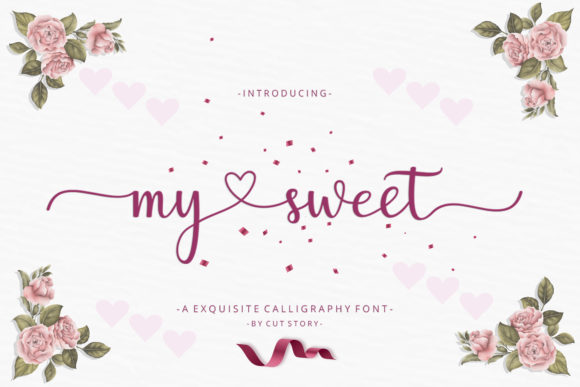
Get ready to fall head over heels for "My Sweet Font," a delightful script font family that's pure charm personified. Dive into the world of cursive typography, where elegance and individuality intertwine. Crafted with love by Cut Story, "My Sweet Font" is a treasure trove of creative possibilities.
With its delicate strokes and flowing lines, "My Sweet Font" feels like a warm embrace. It's the perfect choice for adding a touch of sophistication and charm to your designs. Picture your wedding invitations adorned with the graceful curves of "My Sweet Font," conveying the joyous occasion with a timeless elegance.
"My Sweet Font" is not just a font; it's an expression of your creativity. Whether you're a seasoned designer or just starting, this font family has something for everyone. Let your imagination run wild as you explore the endless possibilities of "My Sweet Font."
Add a dash of sweetness to your thank-you cards, making each word a heartfelt gesture. Transform your quotes into works of art, capturing the essence of inspiration with every letter. Create greeting cards that speak volumes, carrying your heartfelt messages with style and grace.
"My Sweet Font" goes beyond the ordinary. It's the secret ingredient that elevates logos and business cards, giving them a distinct personality. Your designs will stand out, leaving a lasting impression on your audience.
With "My Sweet Font," you're not just downloading a font; you're embracing a world of creativity. It's the key to unlocking your unique design aesthetic. So, let your imagination soar and embark on a journey of endless creative possibilities.